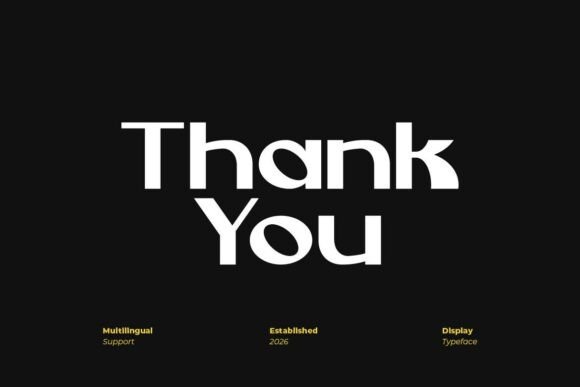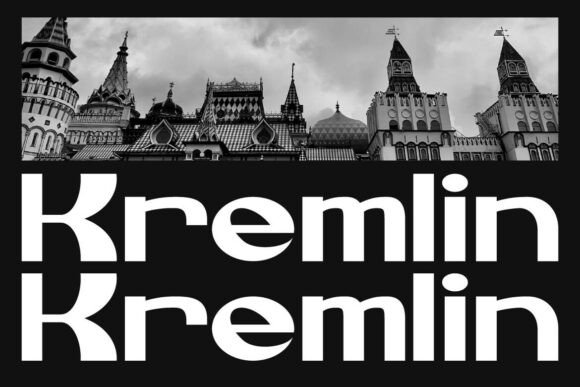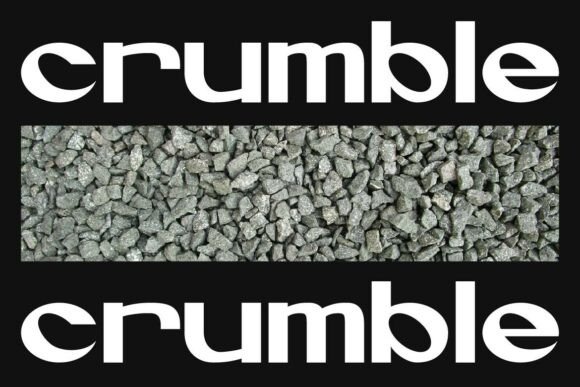
Introduction to Okle Font
You’re staring at a blank canvas, a blank page, or a blank screen, and you’re waiting for that spark of creativity to strike. You know exactly what you want to convey with your design – bold, playful, and eye-catching – but you just can’t seem to find the perfect font to bring your vision to life.
That’s where Okle Font comes in – a game-changing creative display typeface that’s about to revolutionize your design process. With its unique letterforms, expressive shapes, and modern creative style, Okle Font is the perfect addition to any design project, whether you’re working on a high-quality logo, a free downloadable asset, or a complex creative project.
What makes Okle Font truly valuable is its ability to add a touch of personality to your designs, making them stand out in a crowded market. Whether you’re working on a design project that requires a transparent background or a bold statement, Okle Font is the perfect design resource to take your creative projects to the next level.
Okle Font
- High-quality, professional font suitable for various creative projects.
- Features a unique, modern design with a clean and elegant aesthetic.
- Designed to be highly legible, even at small font sizes.
Honest Review: Okle Font
I recently stumbled upon the Okle Font, a free download that I was excited to test in my creative project. The first thing that caught my attention was its high quality and sleek design. The font is perfect for any design resource that requires a modern and elegant touch.
While the Okle Font is an excellent addition to any design resource, I did find a few limitations. The font is only available in a limited number of weights, which can make it difficult to achieve the desired level of boldness or lightness.
Overall, I’m impressed with the Okle Font. Its high quality and modern design make it an excellent choice for any creative project. With its transparent background and free download, it’s a design resource that I’ll definitely be using again.
The Okle Font is a versatile design resource that can be used in various creative projects, such as logo design, branding, and digital art. It’s also a great choice for creating social media graphics, flyers, and brochures.